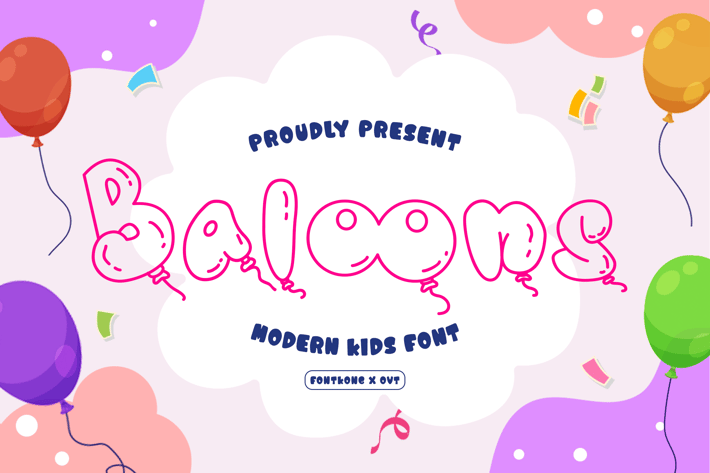
Baloons - A Modern Kids Font
Baloons is a fun and playful modern kids font designed to add a touch of joy and whimsy to your design projects. With its bubbly shapes and cheerful letterforms, Baloons is perfect for children’s books, playful posters, fun invitations, and vibrant packaging. This font captures the essence of childhood wonder and creativity, ensuring your work stands out with a delightful and engaging style.
Crafted with care, Baloons features rounded and friendly characters that offer excellent readability and visual charm. Its playful design makes it ideal for display purposes, providing a lively and memorable presence. The font’s versatility allows it to adapt seamlessly to various design contexts, from digital screens to printed materials, making it a valuable asset for any designer aiming to create joyful and captivating visuals.
Elevate your design projects with Baloons, a font that embodies the spirit of fun and imagination. Its unique style and adaptability make it an essential addition to any designer’s toolkit for crafting vibrant and engaging designs. Enhance your work with Baloons and experience the charm of modern kids typography.
Baloons is a fun and playful modern kids font designed to add a touch of joy and whimsy to your design projects. With its bubbly shapes and cheerful letterforms, Baloons is perfect for children’s books, playful posters, fun invitations, and vibrant packaging. This font captures the essence of childhood wonder and creativity, ensuring your work stands out with a delightful and engaging style.
Crafted with care, Baloons features rounded and friendly characters that offer excellent readability and visual charm. Its playful design makes it ideal for display purposes, providing a lively and memorable presence. The font’s versatility allows it to adapt seamlessly to various design contexts, from digital screens to printed materials, making it a valuable asset for any designer aiming to create joyful and captivating visuals.
Elevate your design projects with Baloons, a font that embodies the spirit of fun and imagination. Its unique style and adaptability make it an essential addition to any designer’s toolkit for crafting vibrant and engaging designs. Enhance your work with Baloons and experience the charm of modern kids typography.